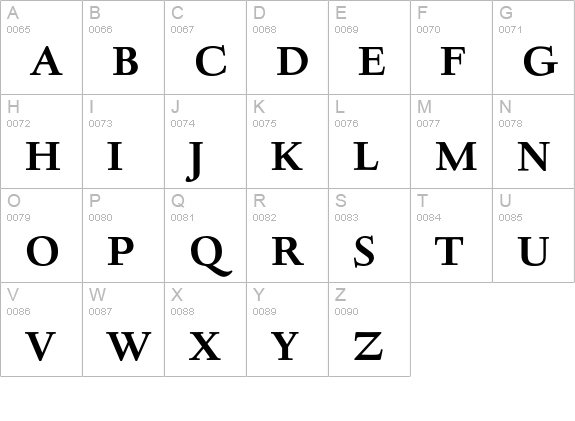
Deepdene BQ Bold is a strong, high-contrast variant in the Deepdene typeface family \xE2\x80\x94 well suited to headlines, attention-grabbing titles, and strong calls-to-action.
Deepdene BQ Bold is a striking and versatile typeface that commands attention with its bold and powerful presence. Its sharp lines and strong strokes make it perfect for headlines, titles, and other prominent text in both print and digital media. With a modern yet timeless aesthetic, Deepdene BQ Bold exudes confidence and sophistication. What sets Deepdene BQ Bold apart is not just its design, but also its accessibility. This premium font is available for free download at FontsMarket.com, making it easy for designers, writers, and creatives to incorporate this impactful typeface into their projects without any cost barriers. Whether you're working on branding materials, advertising campaigns, editorial layouts, or any other design project, Deepdene BQ Bold is a reliable choice that will elevate your work to new heights. Download it today and make a bold statement with your typography.